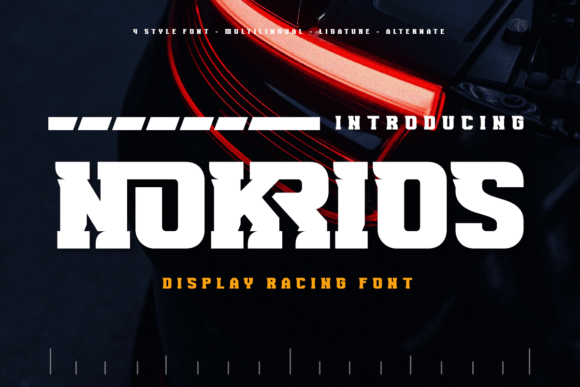
Journey into the realm of typography with Nokrios Font, the ultimate choice for tech enthusiasts seeking a font that captures the exhilarating spirit of racing. Inspired by the raw power and velocity of the sport, this serif font embodies speed and precision, making a bold statement that demands attention.
Crafted by twinletter, Nokrios is more than just a font; it's an experience that ignites your creativity and leaves a lasting impression. Its heavy-duty design exudes strength and functionality, making it the perfect choice for titles, headings, and impactful text that demands attention.
With Nokrios, you'll never compromise on readability or impact. Its carefully crafted structure ensures clarity even at small sizes, making it ideal for both print and digital designs. Unleash your inner racer and let Nokrios propel your projects to new heights.
But that's not all! Nokrios is PUA encoded, giving you effortless access to a world of glyphs and swashes that add a touch of elegance and sophistication to your designs. Open up a universe of possibilities and let your creativity run wild.